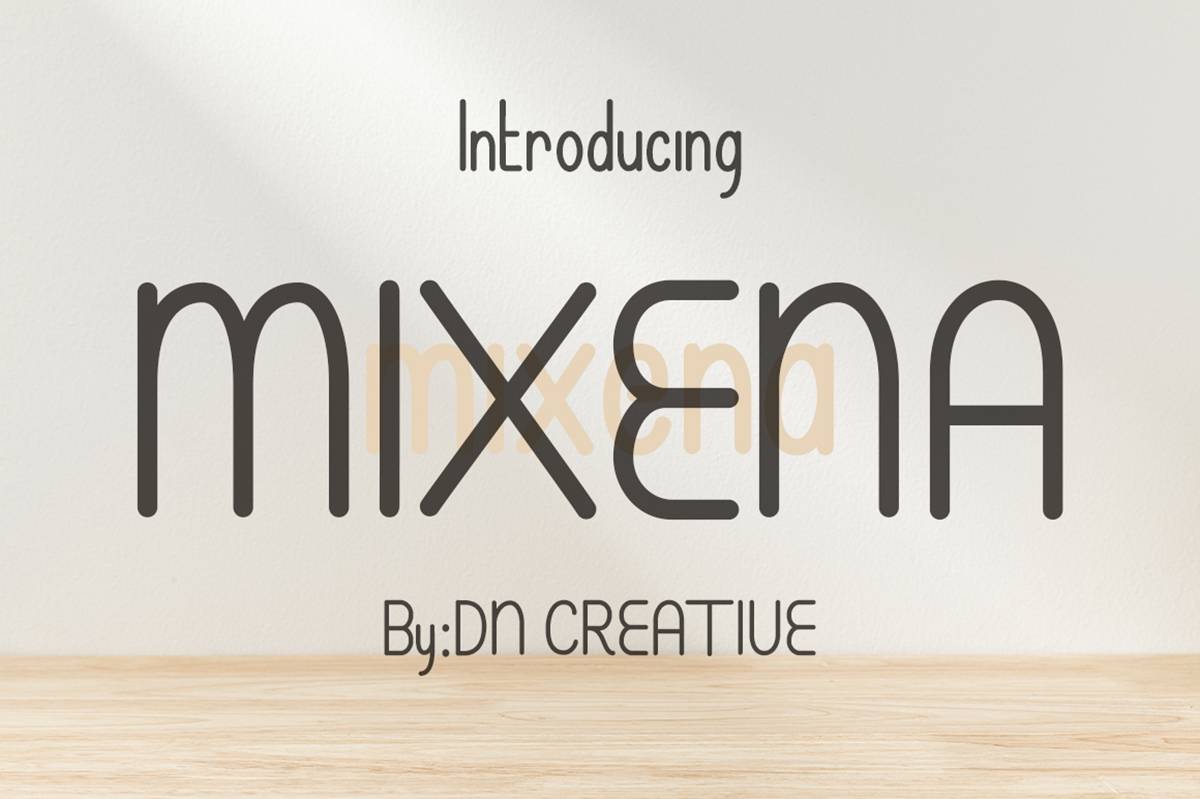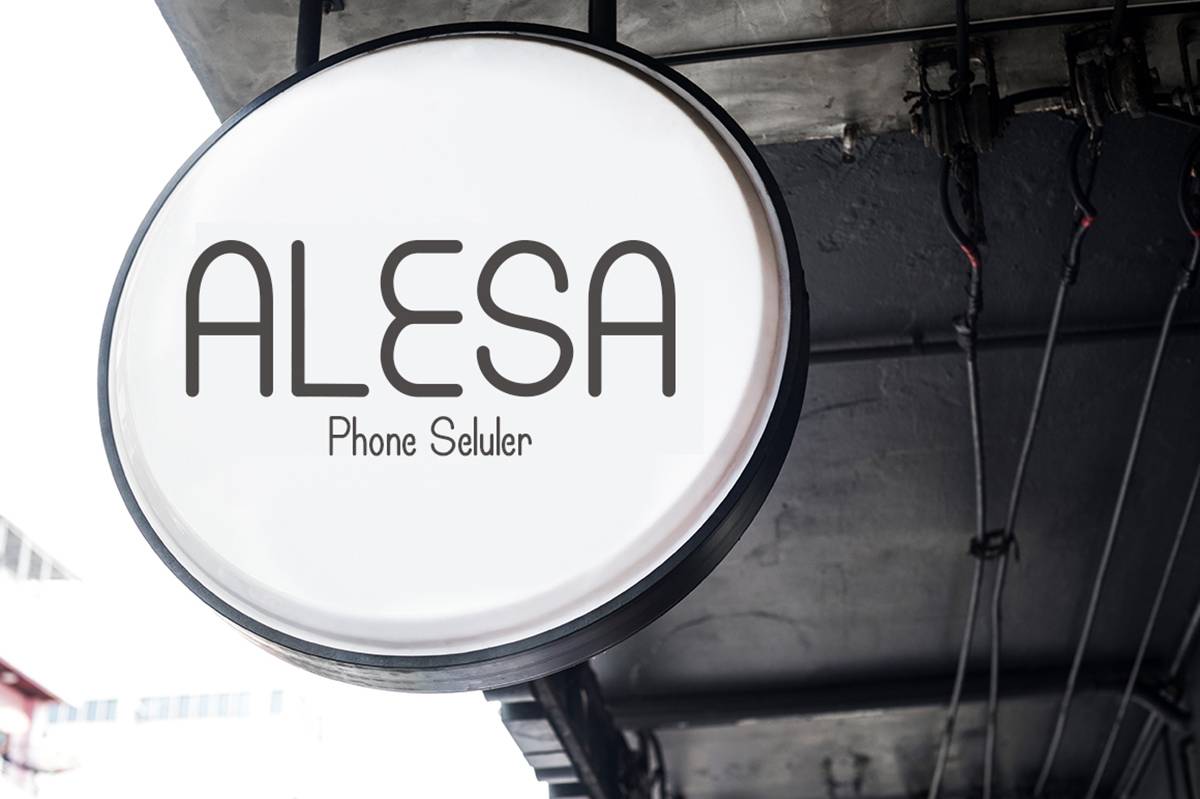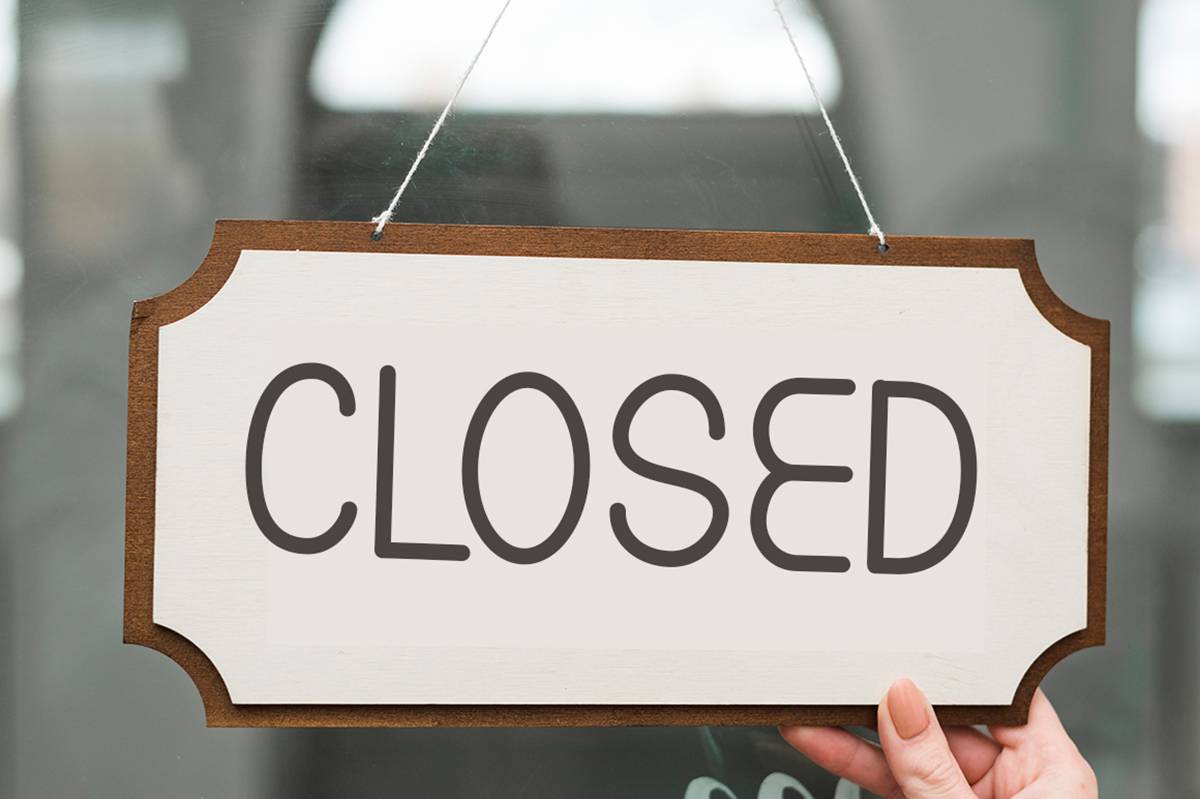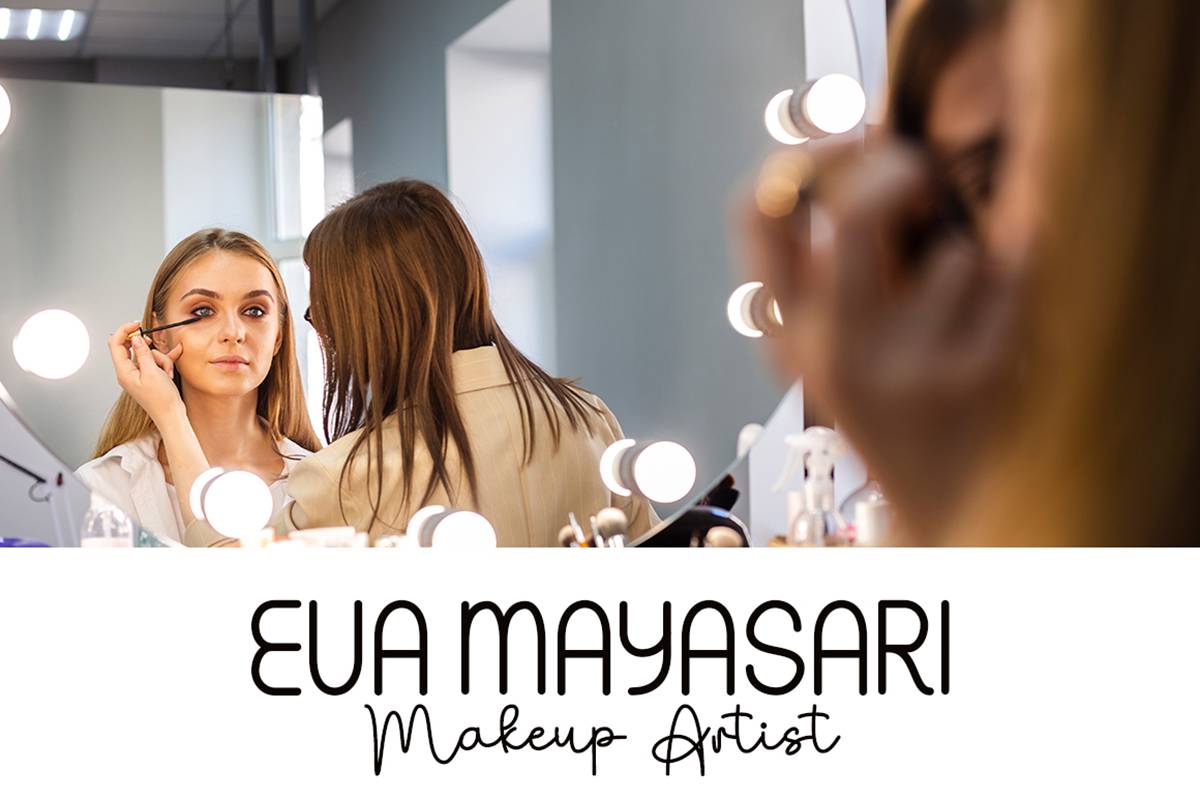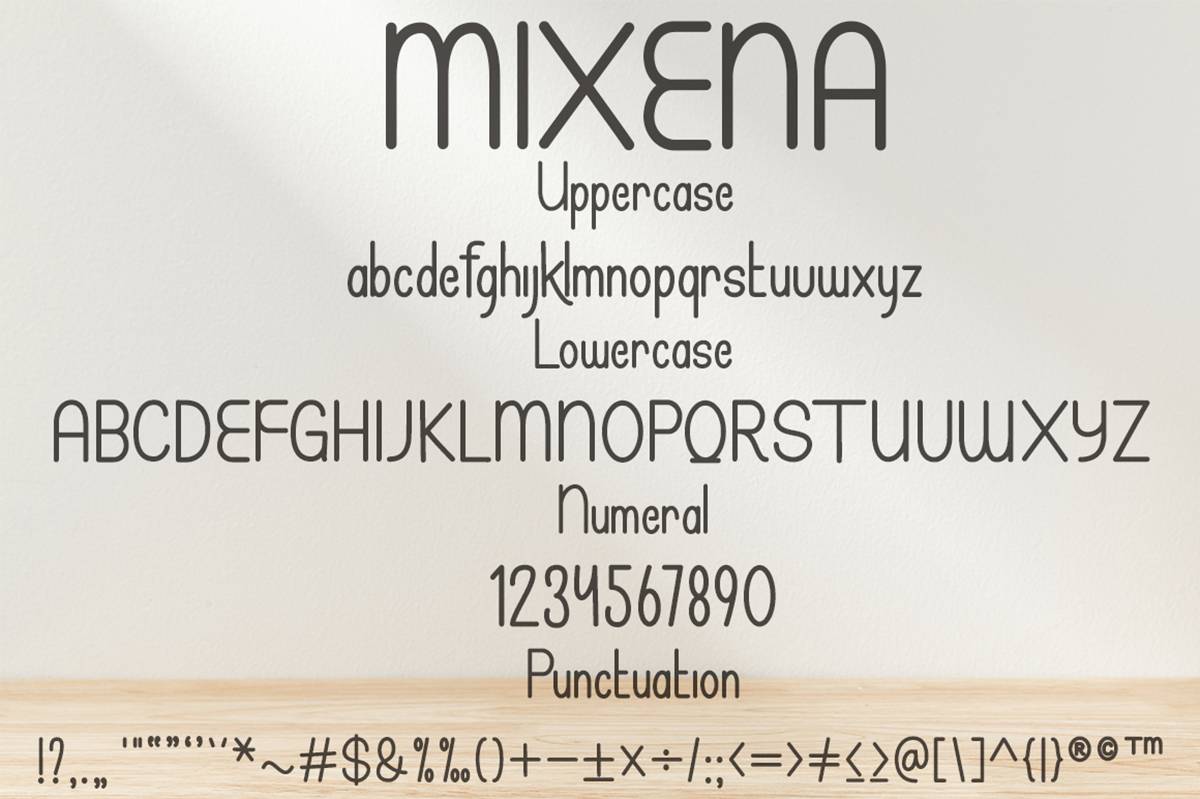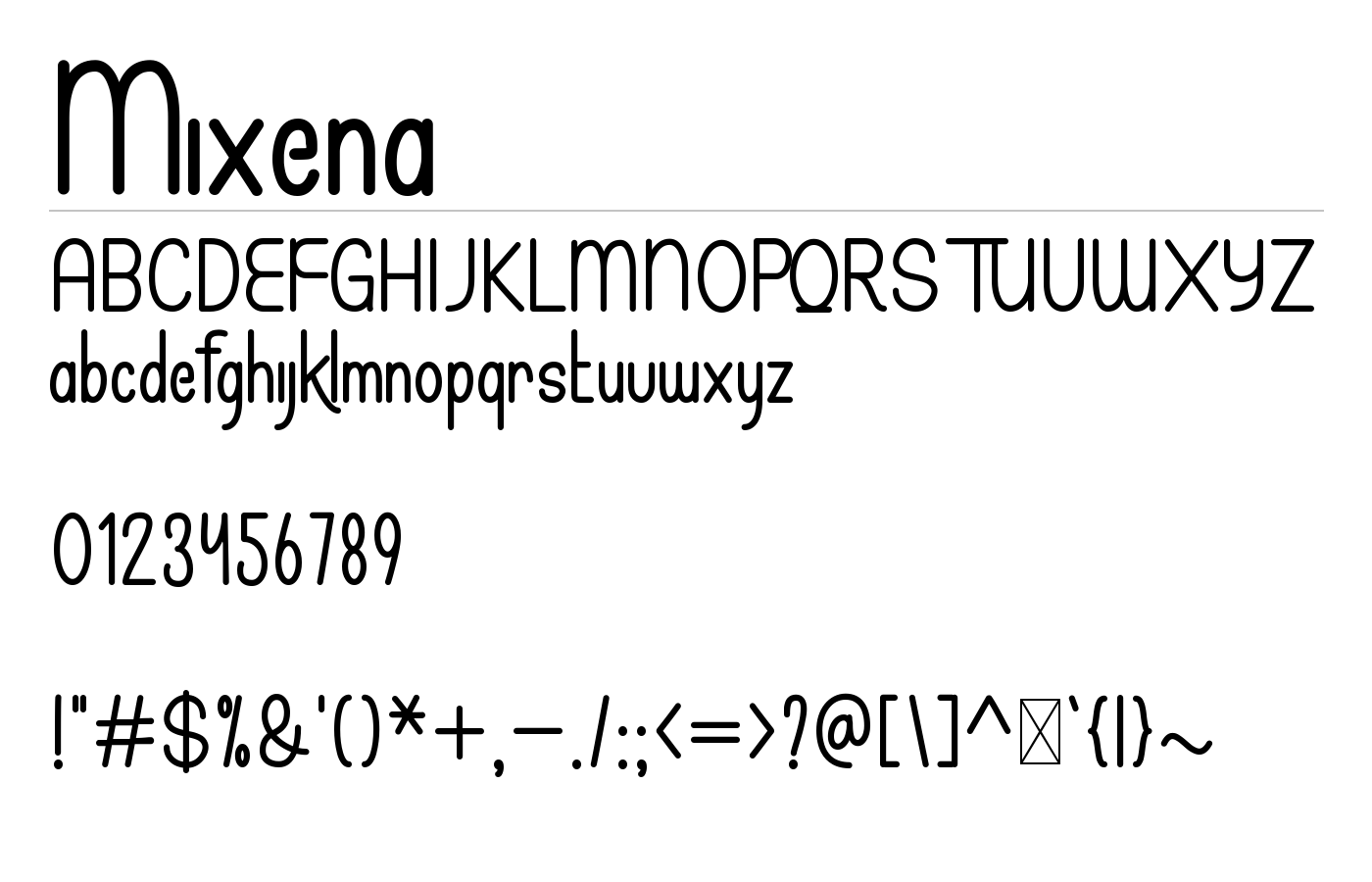
Mixena is a playful and modern sans serif font with a tall, narrow structure and smooth, rounded strokes that give it a friendly, approachable feel. Its thin weight and unique letterforms, such as the distinct "Q" and double-storied "a" and "g," make it ideal for creative projects, branding, and headlines where a quirky, casual style is desired. This font works well in digital and print formats, adding a lively and distinctive touch without sacrificing readability.
Mixena Font
About Mixena Font
| Font family | Mixena Font |
| Designer | Wahyudi |